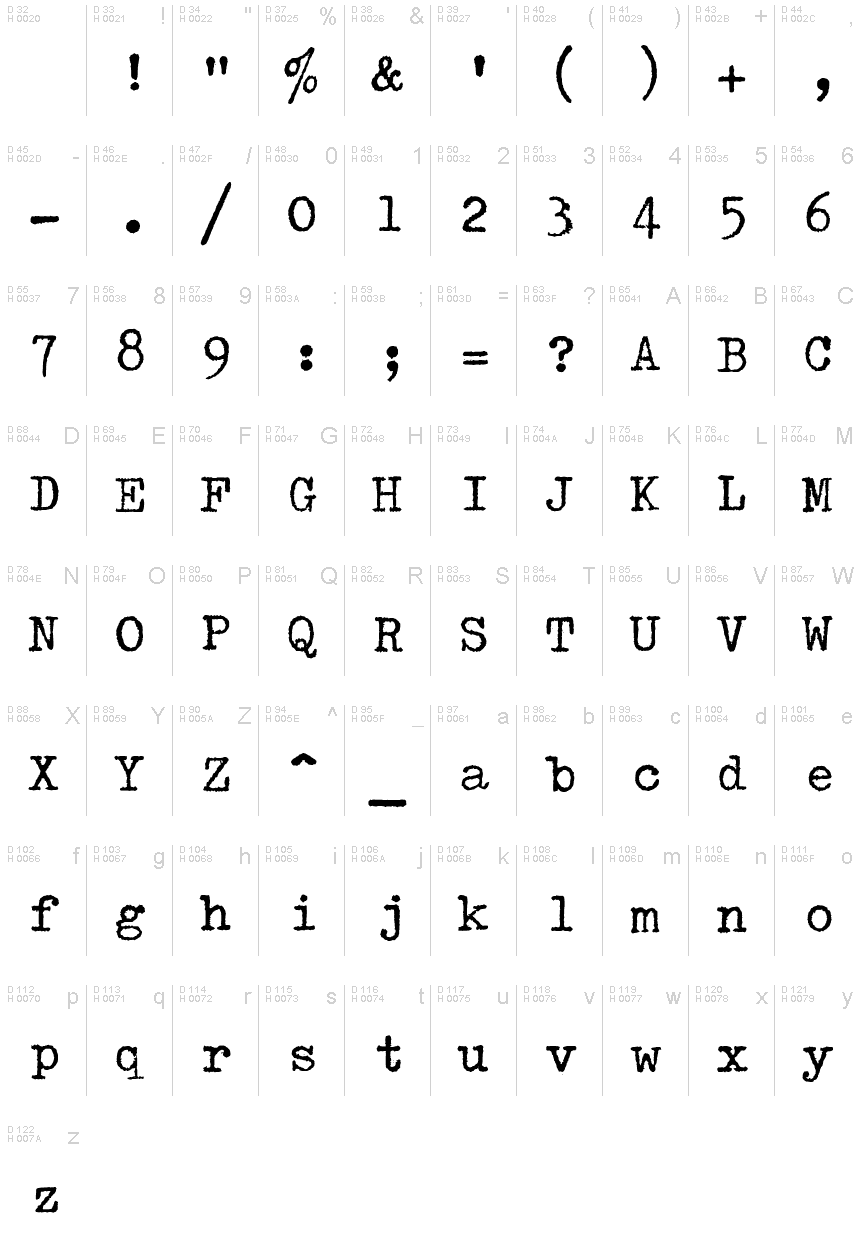
Underwood319
Underwood319 is a display font designed by Julien Gagne. This semi-light eroded typewriter style font gives off a vintage, antique feel that is perfect for a range of projects. Use Underwood319 to create unique and eye-catching logos, posters, and other branding materials. Its bold yet understated presence will add character and personality to your designs. The distinct typewriter style can also be utilized for book cover designs or editorial layouts, giving your work an authentic feel of the past. Whether you're designing for a hipster café or an old-fashioned bookstore, Underwood319 will surely make an impact on any project.
This font is the one of my old Underwood319 typewritter. It preserves original spacing but also misalignments. All this for a faithfull reproduction of the real machine!
All characters, including those obtained by double typing, can be done on the actual machine. No additional one!
The actual keyboard is the French AZERTY version.